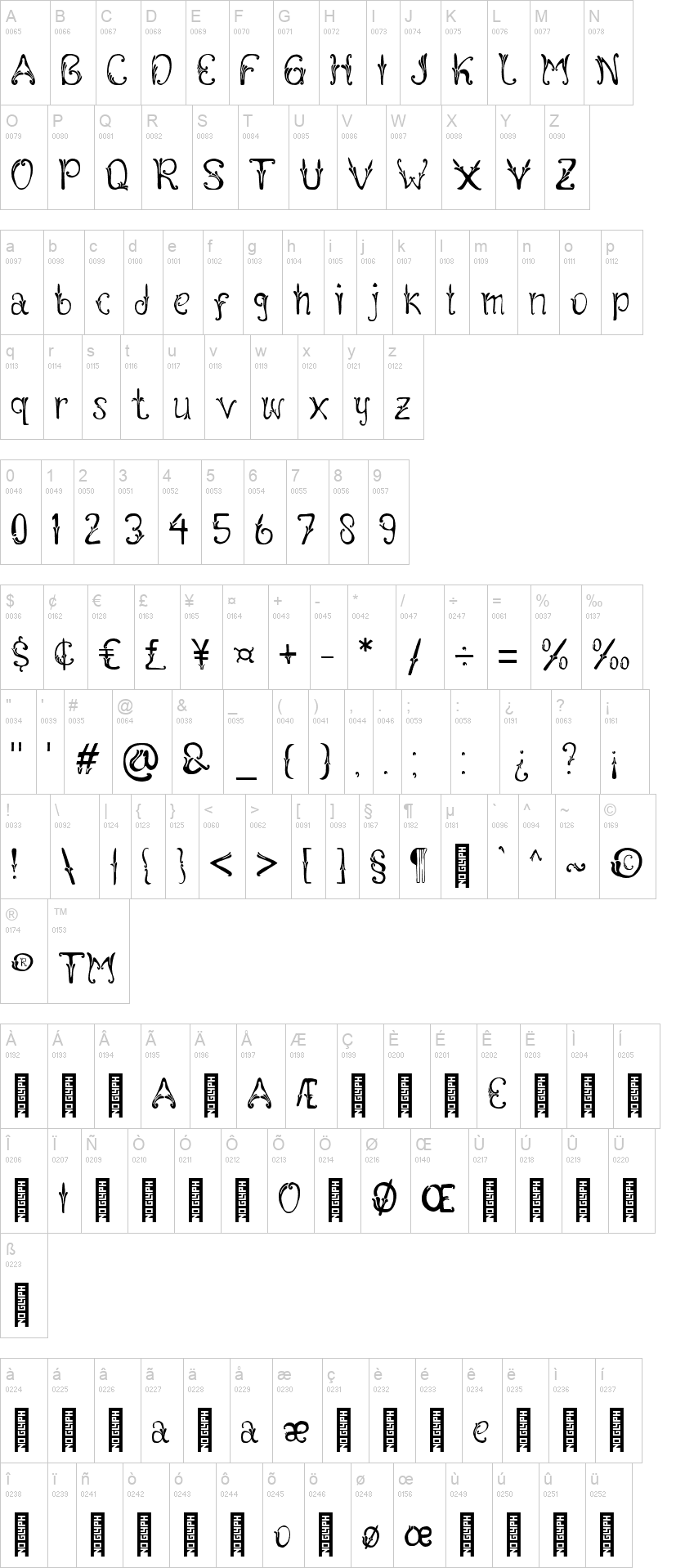
Note of the authorIntroducing our new font, Coral Fobia is a display font with carving shape look likes a coral, this font good to use for Wedding Card, T-Shirt Design, Book Cover,Poster, and any others design.